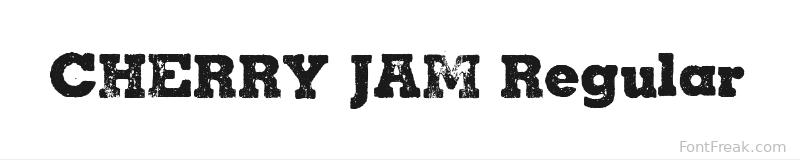
CHERRY JAM Regular
About CHERRY JAM Regular
CHERRY JAM Regular is a unique display font designed by Billy Argel Fonts, characterized by its bold, playful style. This font falls into the decorative category, boasting a distinctive look that captures attention effortlessly. The letterforms feature a slightly rough texture, giving them a handcrafted feel that adds charm and character. With a medium stroke weight and minimal contrast, CHERRY JAM Regular is both legible and visually engaging, making it suitable for a variety of creative projects. The spacing is generous, allowing for easy readability, even in larger sizes.
This font excels in various use cases, making it a versatile choice for designers and creators. It's perfect for wedding invitations, where its whimsical nature can convey a sense of joy and celebration. Additionally, CHERRY JAM Regular works wonderfully for restaurant menus, especially those seeking to evoke a casual, welcoming atmosphere. Movie posters benefit from its eye-catching design, drawing viewers in with its playful attitude. Similarly, branding for artisanal products or local markets can leverage this font's unique look to stand out in a crowded space.